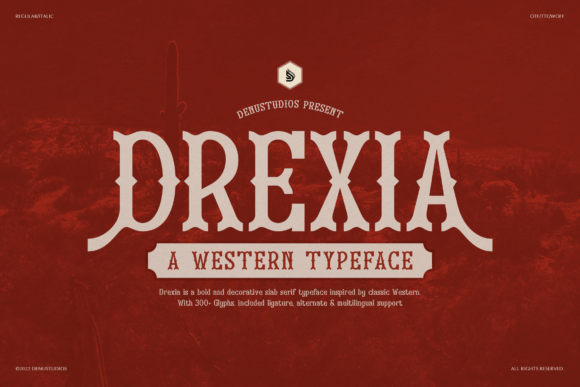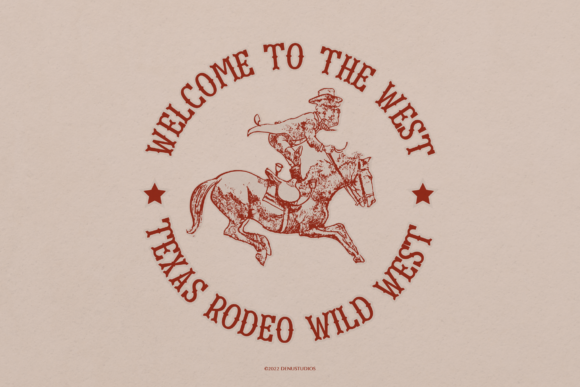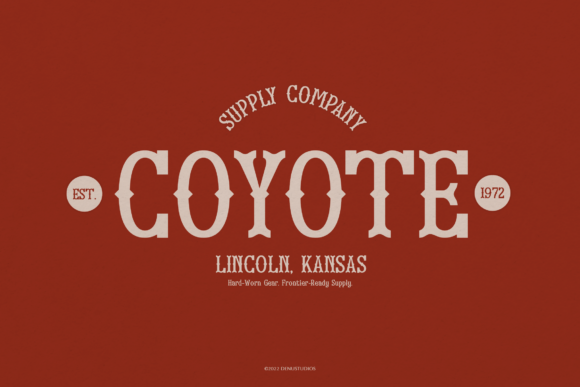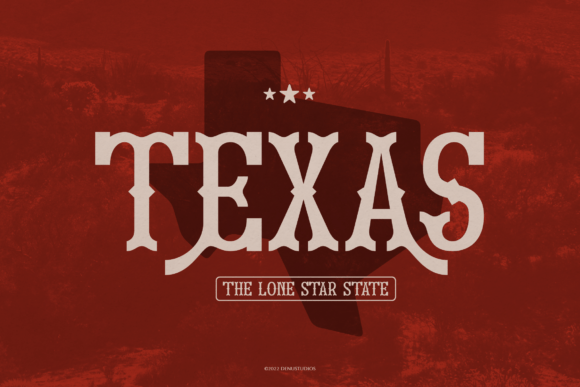
Drexia Font: Bold Western Typography for Vintage Logo Design
About the Drexia Font
The Drexia Font is here to transform your projects with its distinctive character and style. Drexia is a bold, decorative slab serif font inspired by classic Western aesthetics. With over 300 glyphs, ligatures, alternates, and multilingual support, Drexia brings a rugged charm to your designs. Perfect for vintage logos, cowboy-themed branding, posters, saloon signage, and anything that needs that wild west flair.
Drexia’s bold, decorative forms excel in headlines, short text blocks, and display applications like posters and signage. Its strong personality makes it ideal for brands conveying ruggedness, heritage, or a vintage aesthetic. Avoid using Drexia for body copy or lengthy paragraphs; its weight and ornamentation hinder readability in extended text.
Consider pairing Drexia with a clean sans-serif like Montserrat for a balanced contrast, or a more delicate script font like Great Vibes for a touch of elegance against its strong forms. A geometric sans-serif would also create a modern yet complementary feel.
The overall personality is confident and bold, yet with a touch of classic charm. It’s perfect for projects needing a strong visual presence without sacrificing a sense of timelessness.
Drexia Font Usage Examples
Drexia Font Example